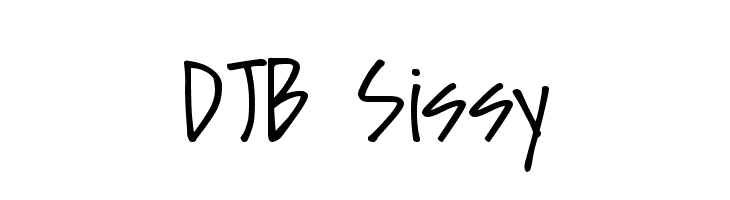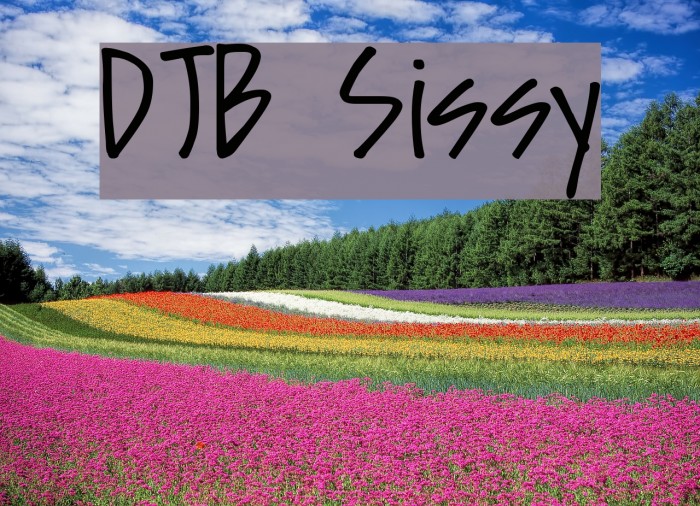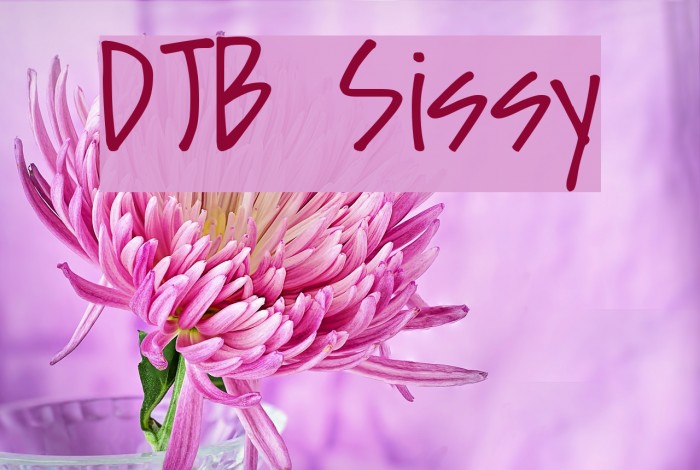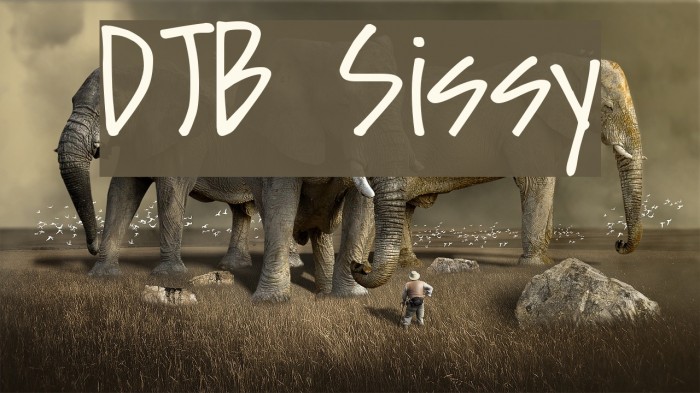
DJB Sissy Font
DJB Sissy Description
This playful and whimsical font features a handwritten style with a casual and friendly appearance. The characters are slightly irregular, giving it an authentic, personal touch. The uppercase letters are tall and narrow, while the lowercase letters are more rounded and approachable. The numbers and special characters maintain the same playful aesthetic, making it versatile for various informal applications. The strokes are consistent in width, providing a uniform look across all characters. This font is ideal for projects that require a personal, fun, and approachable feel.
A playful, handwritten font with a casual and friendly style from Handwritten fonts.
- Proposed Projects: Ideal for greeting cards, children's books, personal blogs, and informal branding.
- Overall Style: Casual, Playful
- Use Case: Headlines, Informal text, Personal projects